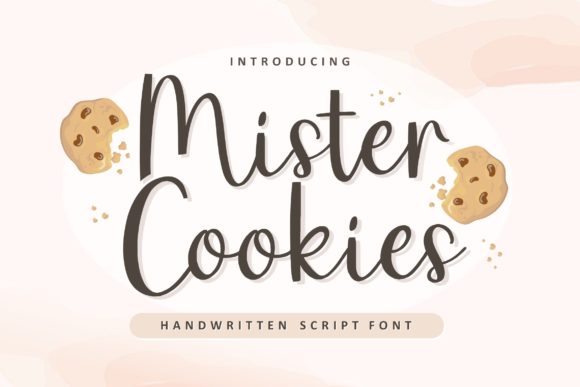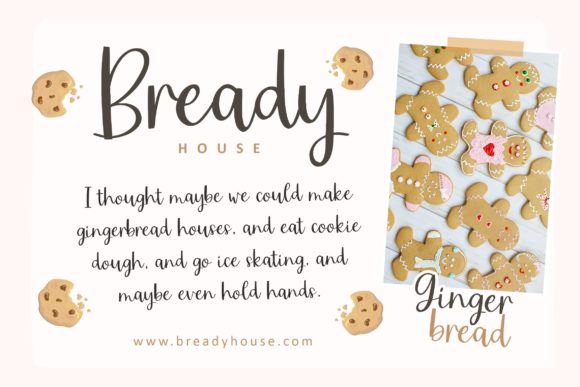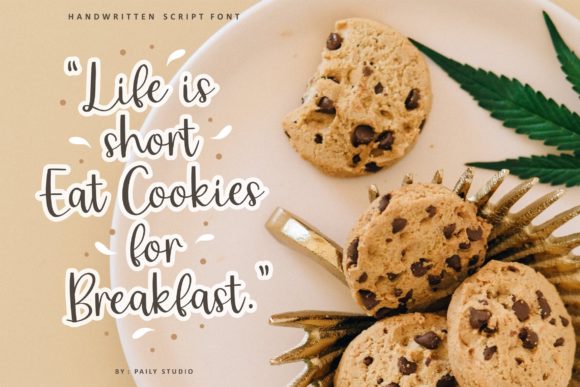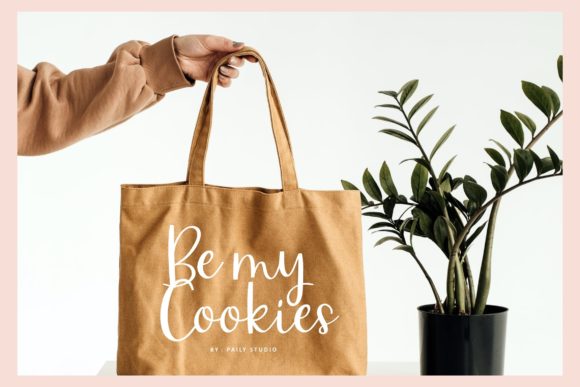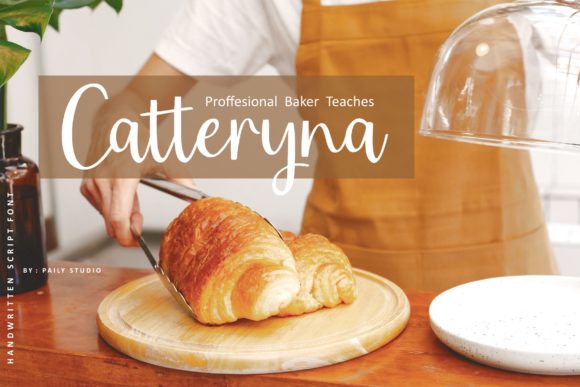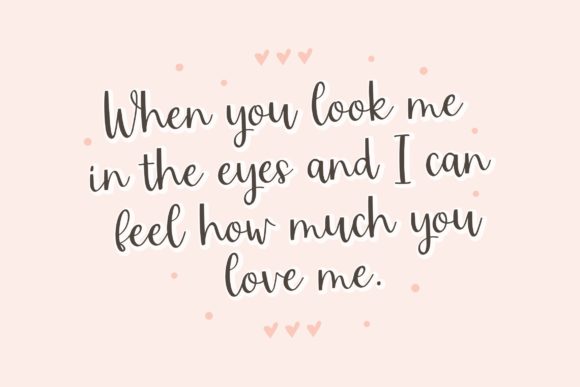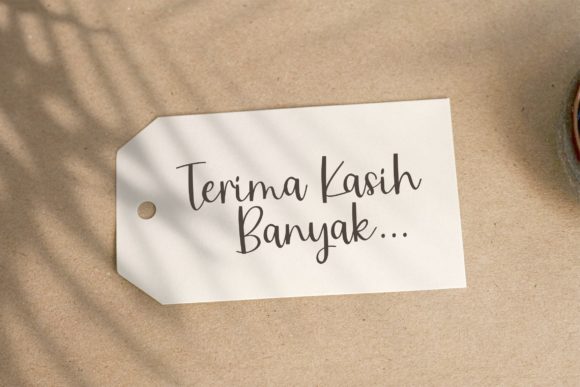
Mister Cookies Font
About Mister Cookies Font
Mister Cookies is a chic, refined script font that emanates sophistication and elegance. Its stylish alternates and ligatures make this font the perfect match for any project.